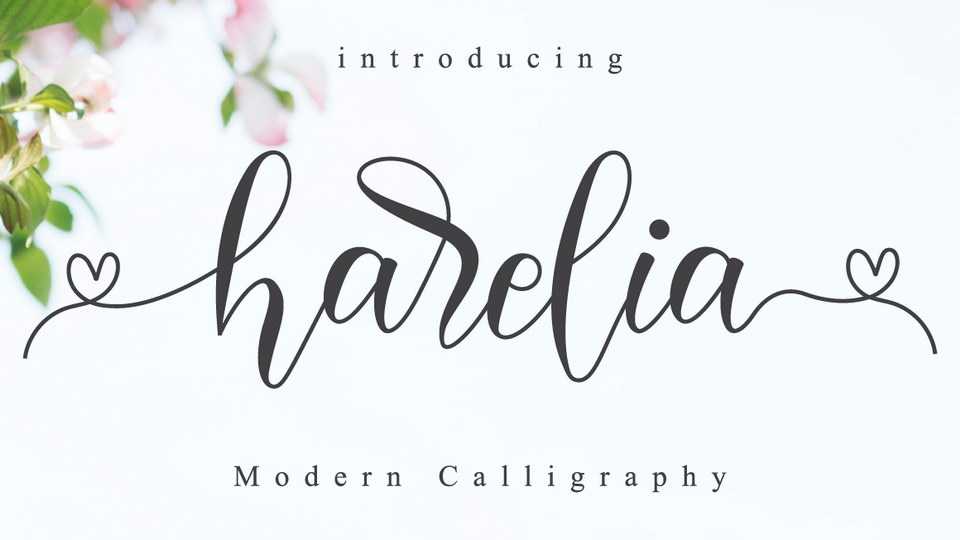
Download Harelia font, a lovely script a romantic, elegant, and modern look. Harelia can be used for logos, branding, invitations, stationary, wedding designs, social media posts, and every other design which needs a handwritten touch.
Designer: Nissa Studio